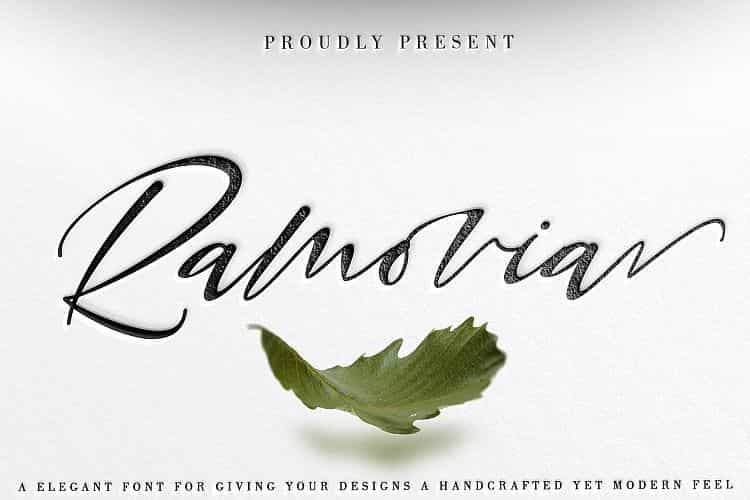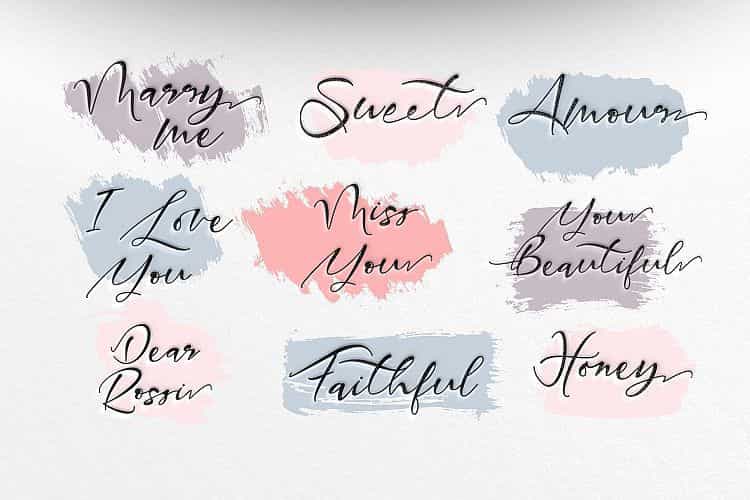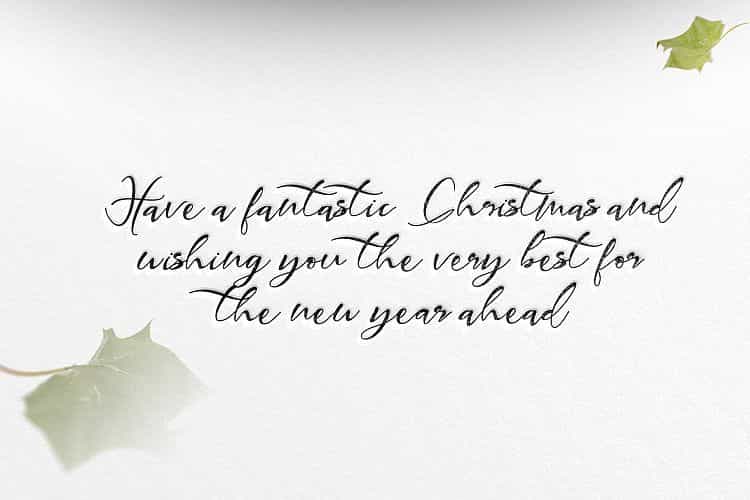
Discover Ramovia Script Font, part of the Commercial Calligraphy collection—a versatile and unique font perfect for adding a personal touch to your projects. Download it for free and enjoy crafting designs with style, from invitations to social media posts. This font is available exclusively for personal use, giving you the freedom to create without limits. Unlock your creativity with Ramovia Script Font today!
Introducing Ramovia Font. It is a clean font that when used in designs makes the work look more handmade, but not in the old fashioned way, rather in the contemporary way. This clean handwritten looks great in both modern and classic designs! Ramovia Script looks beautiful on invitation like greeting cards, branding materials, business cards, quotes, posters, and many more!